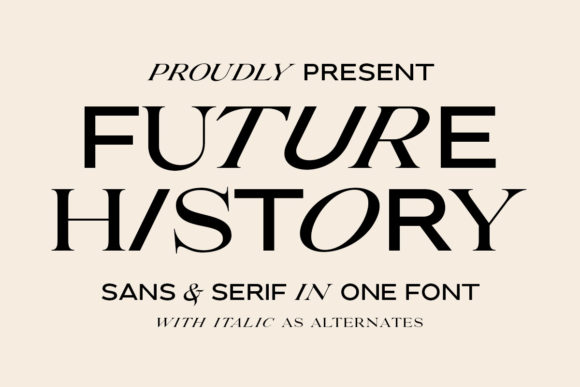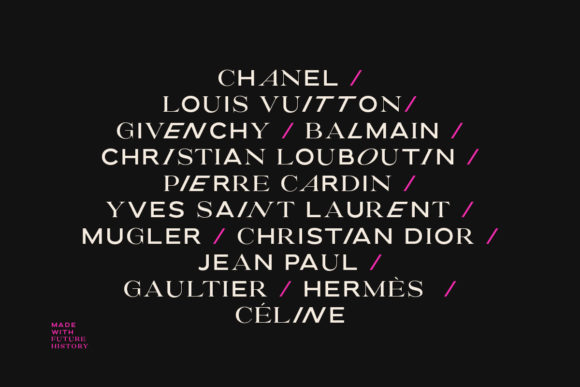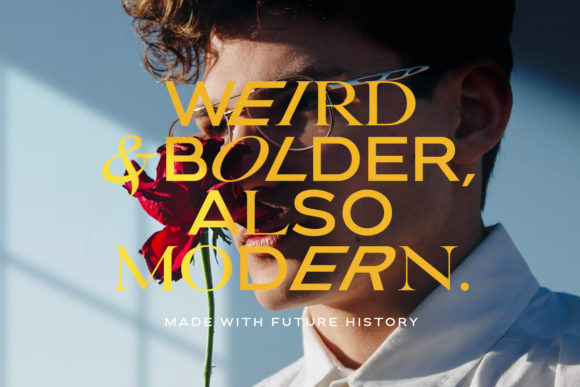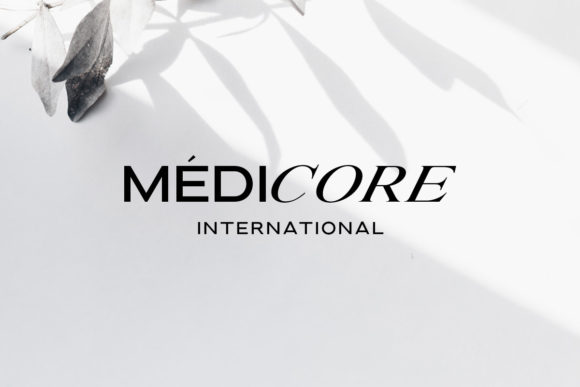
Future History Font: A Modern Display Font for Elegant Logo Design
About the Future History Font
We are excited to introduce Future History Font, a must-have typeface for any serious designer. Future History is a cool, assertive and uniquely designed display font. It is PUA encoded which means you can access all of the glyphs and swashes with ease!
Future History excels as a display font for headlines, logos, and short impactful text in posters or branding materials. Its assertive nature makes it ideal for projects needing a strong visual presence, such as tech startups, gaming brands, or edgy fashion campaigns. Avoid using it for body copy or long paragraphs; its unique design isn’t optimized for readability in extended text formats. Similarly, its boldness may clash with the subtle interactions needed in user interfaces.
Pairing Future History effectively requires considering its assertive personality. A clean sans-serif like Montserrat or a geometric sans-serif such as Futura would create a striking contrast and enhance readability in supporting text. For a softer approach, a neutral serif like Lato can add a touch of sophistication. Avoid pairing it with overly ornate scripts, which might create visual clutter and diminish its impact.
The font’s core personality is bold and modern, conveying confidence and a forward-thinking attitude. Its unique glyphs and swashes add a touch of individuality, making it suitable for brands wishing to project a distinctive and memorable image.